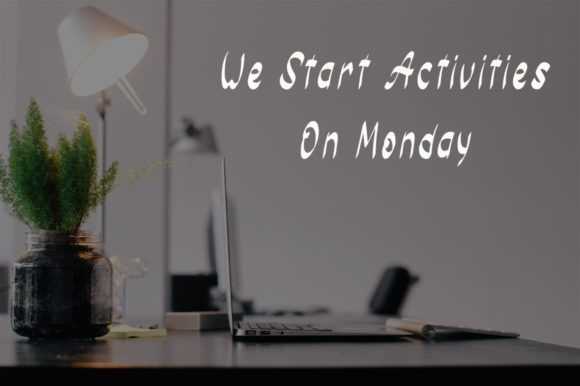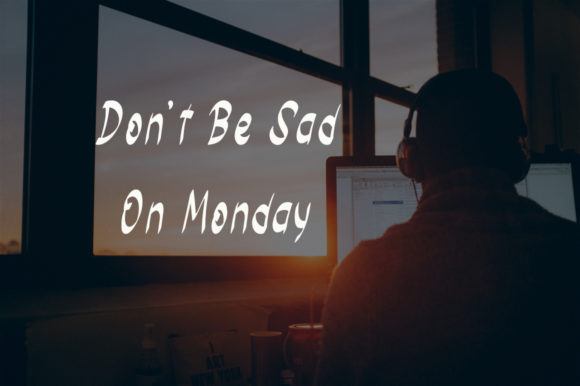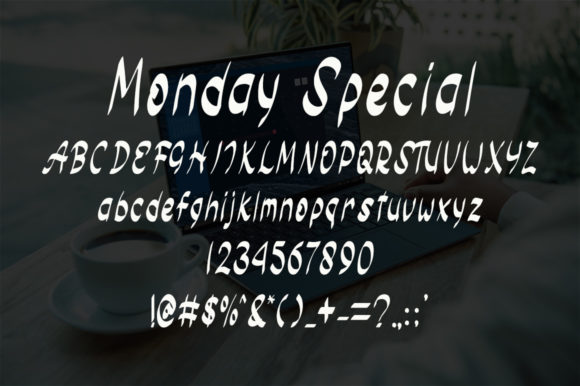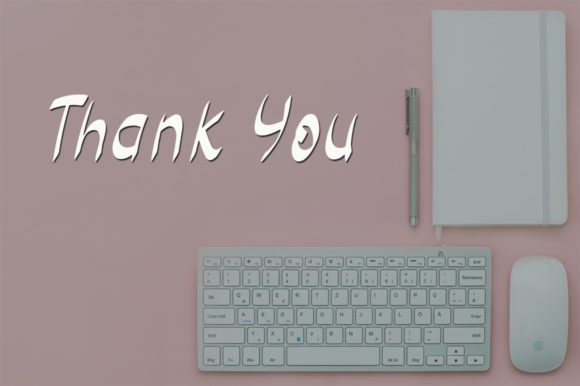
Introduction to Monday Special Font Font
Fonts play a crucial role in design, and the Monday Special Font font is a typeface that brings both character and versatility to any project. Whether you’re working on a branding project, a website, or a print design, the Monday Special Font font offers a unique style that can elevate your work.
Monday Special is a sweet and friendly handwritten font.
Key Features of Monday Special Font Font
Why Choose Monday Special Font Font?
The Monday Special Font font is more than just a typeface – it’s a design tool that helps you communicate your message with style and clarity. Its unique character set and versatile design make it suitable for a wide range of applications, from elegant invitations to bold headlines.
With its carefully crafted letterforms and balanced proportions, the Monday Special Font font ensures readability and visual appeal across all mediums.
What makes Monday Special Font font special?
The Monday Special Font font stands out with its unique design, exceptional readability, and versatility across various design applications.